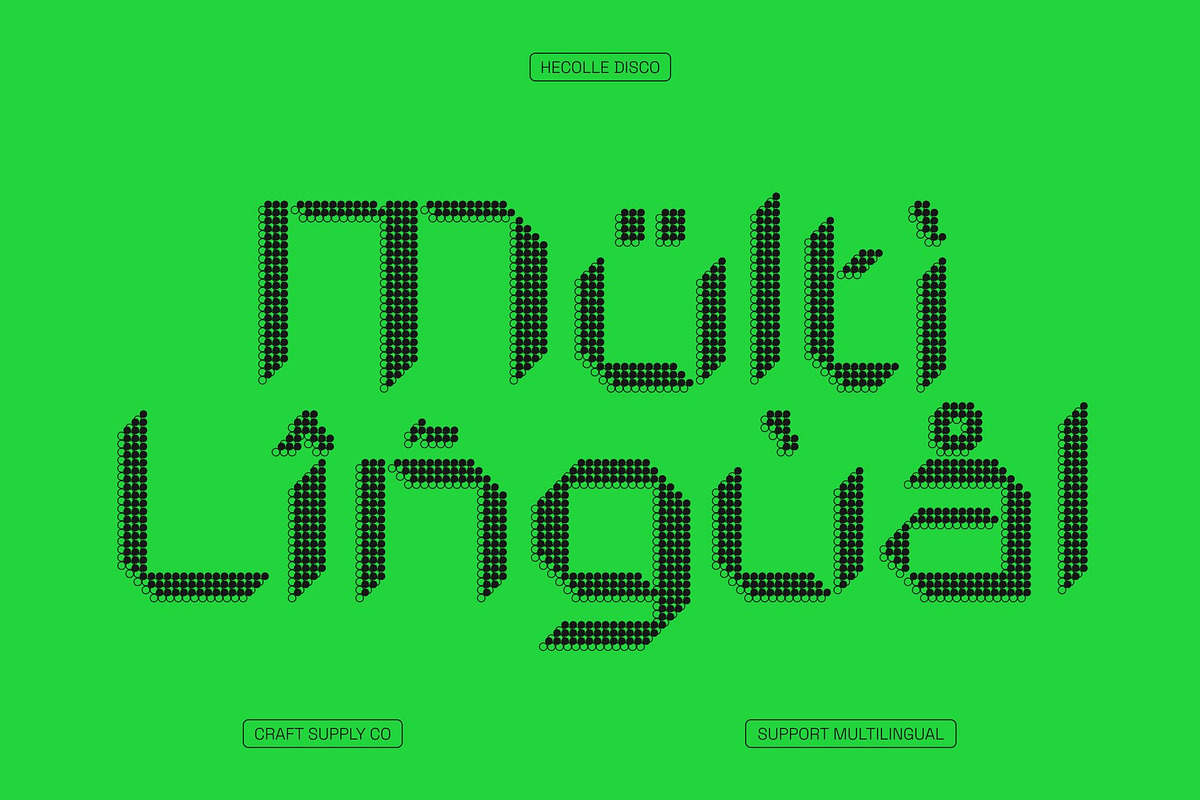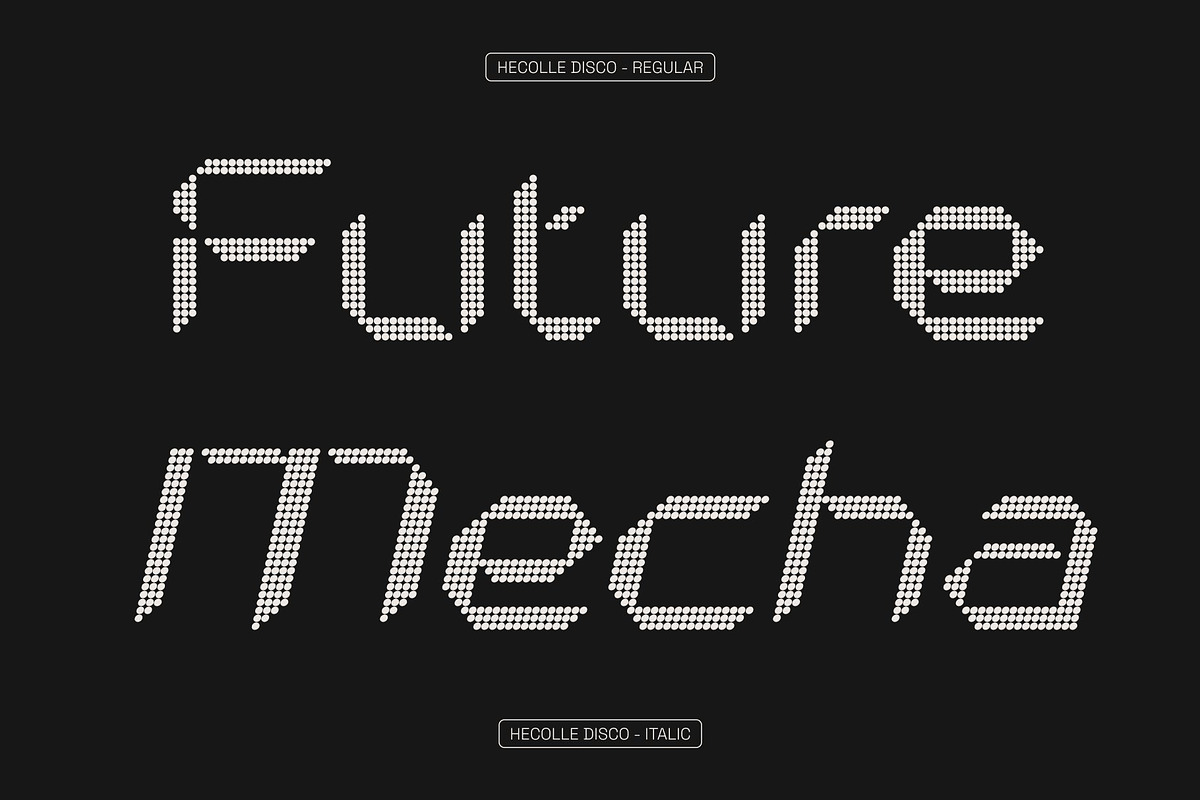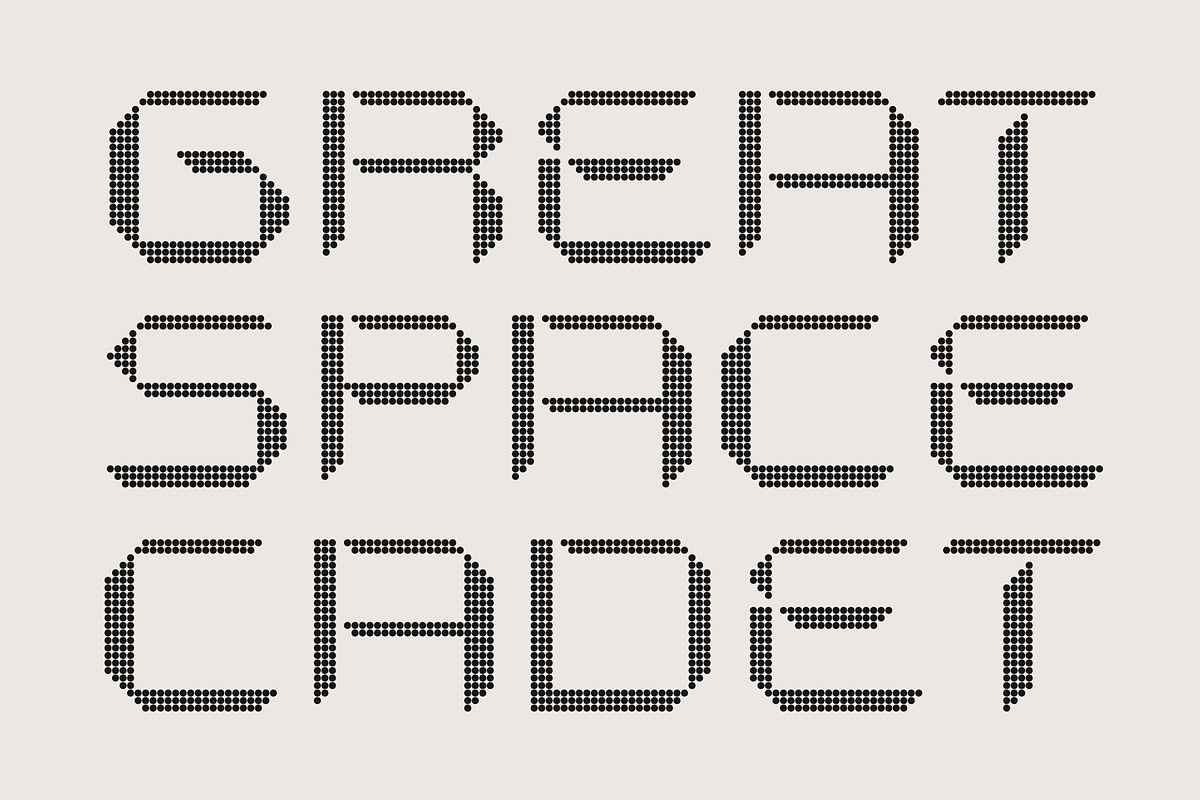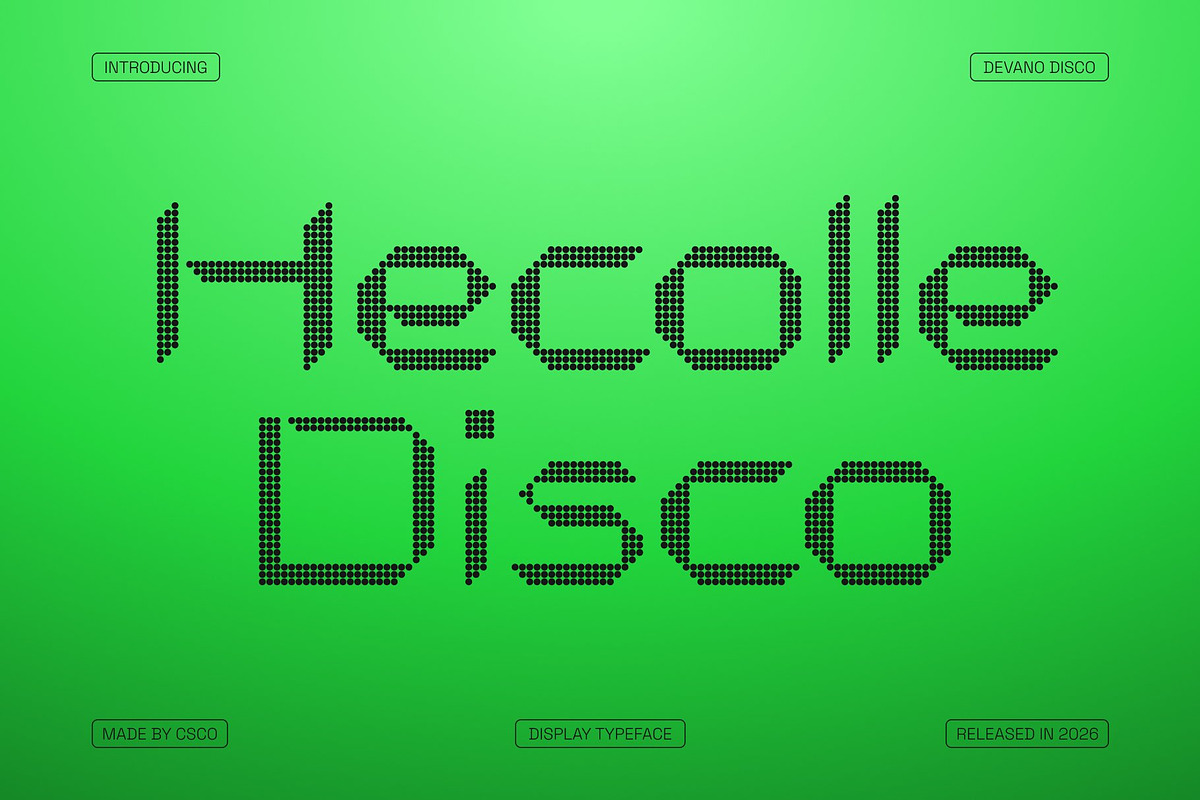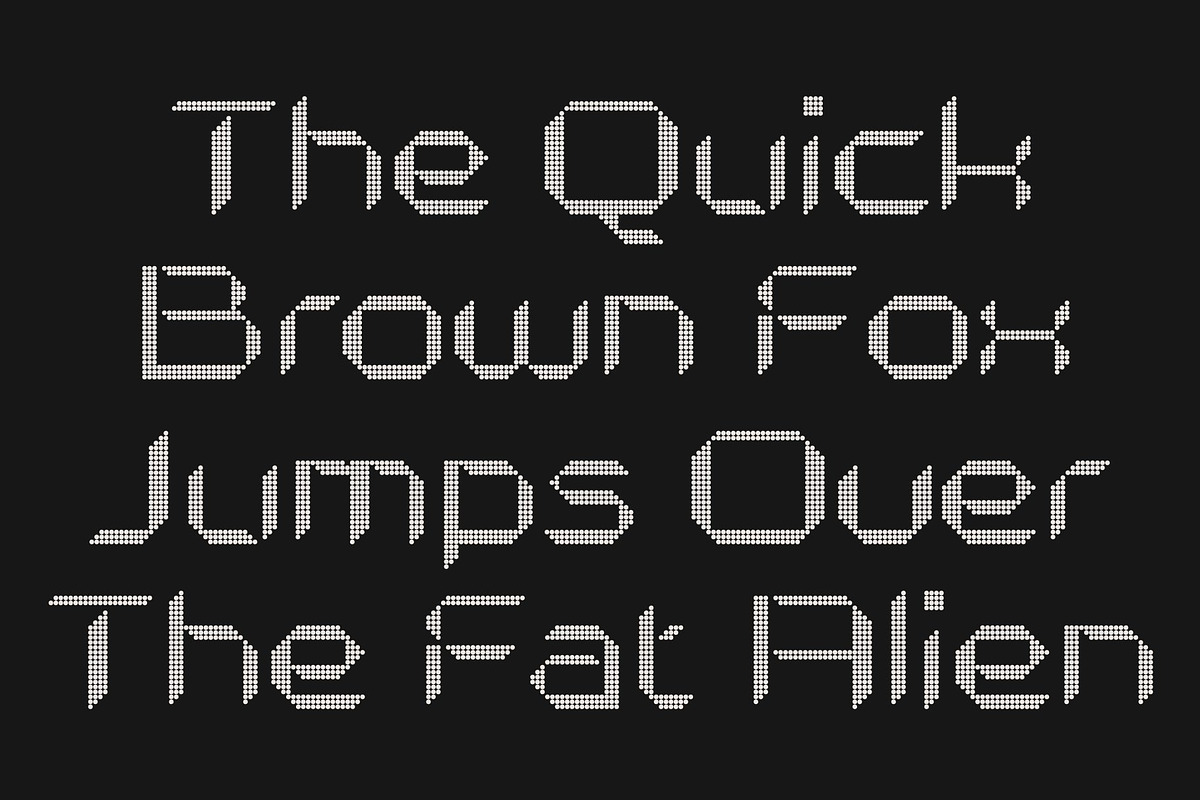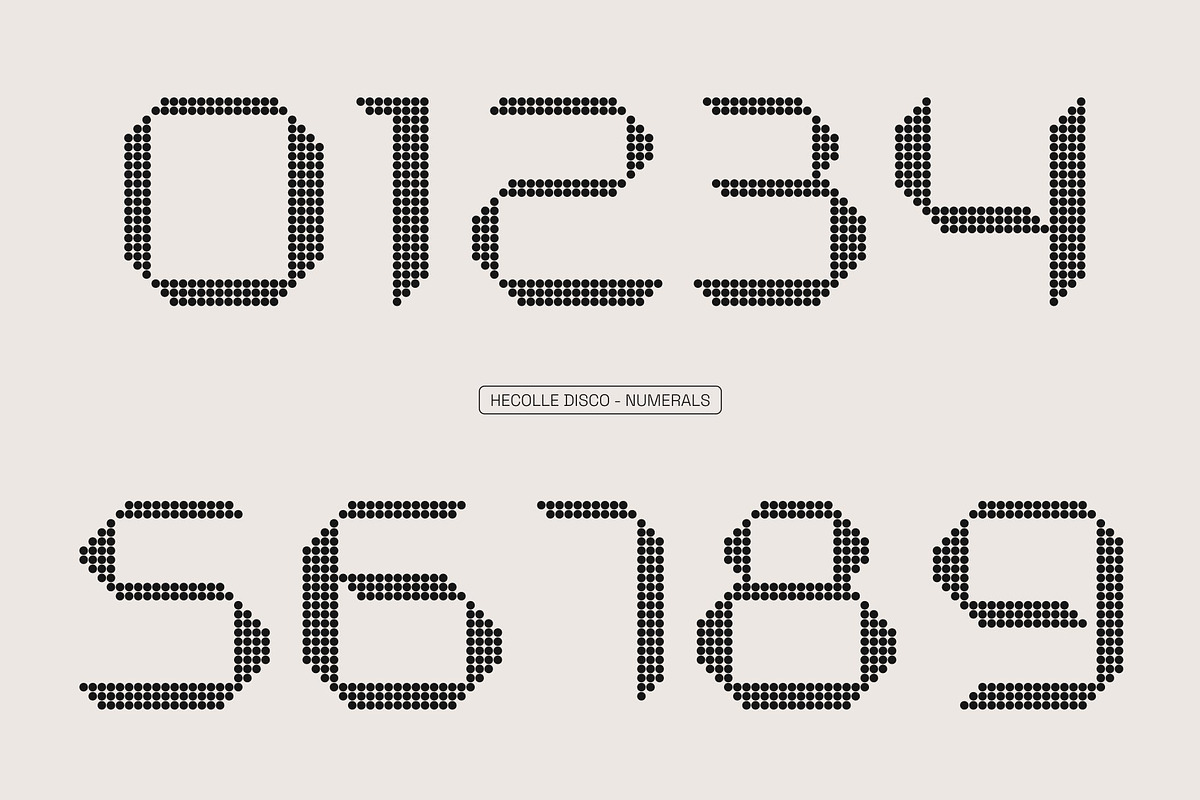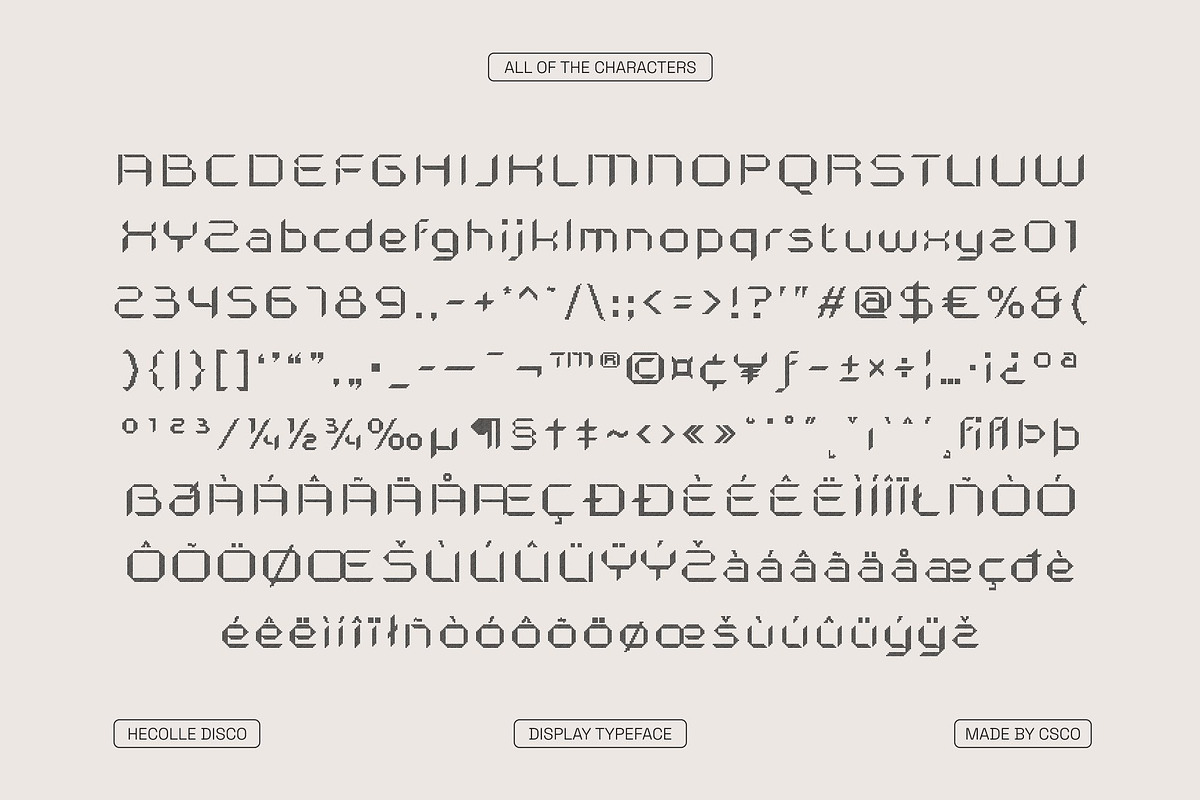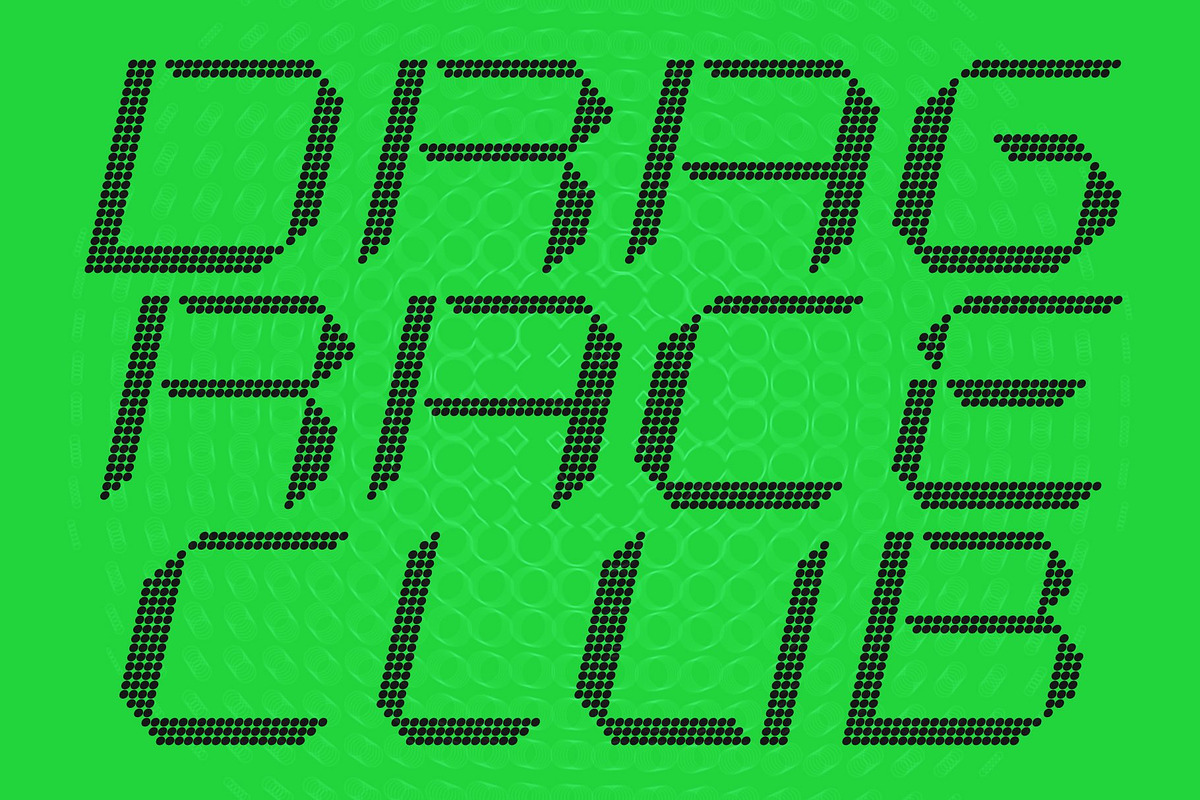
Hecolle Disco
Hecolle Disco – Techno Futuristic Font with Dotted Rhythm
Inspired by Technology and Techno Music This font transforms futuristic geometry into a vibrant disco-style dot font, capturing the pulse of technology and the rhythm of techno music. The dotted texture brings a sparkling, energetic feel like lights on a dance floor while maintaining a sleek and modern character.
Geometric Elegance with Disco Texture Every character is built from precise geometric shapes enhanced with a lively dotted pattern. This fusion creates a striking balance between clean technological precision and cheerful visual energy, giving the font a distinctive futuristic personality.
Futuristic Vibes for Modern Designs With its sharp structure and glowing dot aesthetic, this font communicates innovation, progress, and movement. It’s designed for projects that want to feel modern, digital, and full of energy, while still remaining clean and readable.
Perfect for Digital and Event Visuals Ideal for posters, music events, tech branding, gaming graphics, and futuristic interfaces, this font delivers a bold typographic voice. It’s a celebration of innovation, rhythm, and disco sparkle made to stand out in modern creative projects.
Hecolle Disco Regular
Hecolle Disco Italic